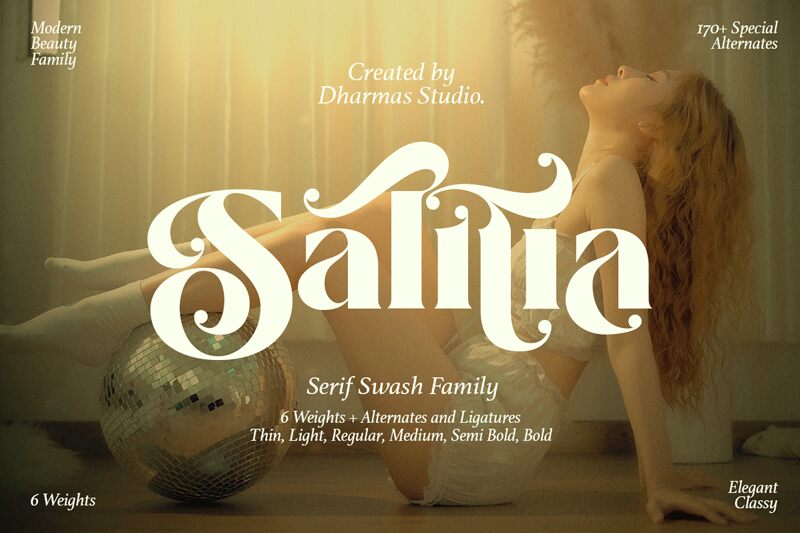
Salitia DEMO Bold
Salitia Bold, a creation from Dharmas Studio, stands out with its strong personality and sophisticated presence. This serif font exudes confidence through its robust strokes, crafting an undeniable statement on any page or project it graces. Its bold character makes for an eye-catching and memorable visual experience that commands attention.
The aesthetic appeal of Salitia Bold lies in its harmonious balance between classic elegance and contemporary flair, making it versatile for a wide range of applications. Whether used for impactful headlines, striking branding, or elegant editorial work, this font has the potential to elevate any design with its refined yet assertive style. With Salitia Bold, designers have an exceptional tool at their disposal to create work that resonates with strength and grace.